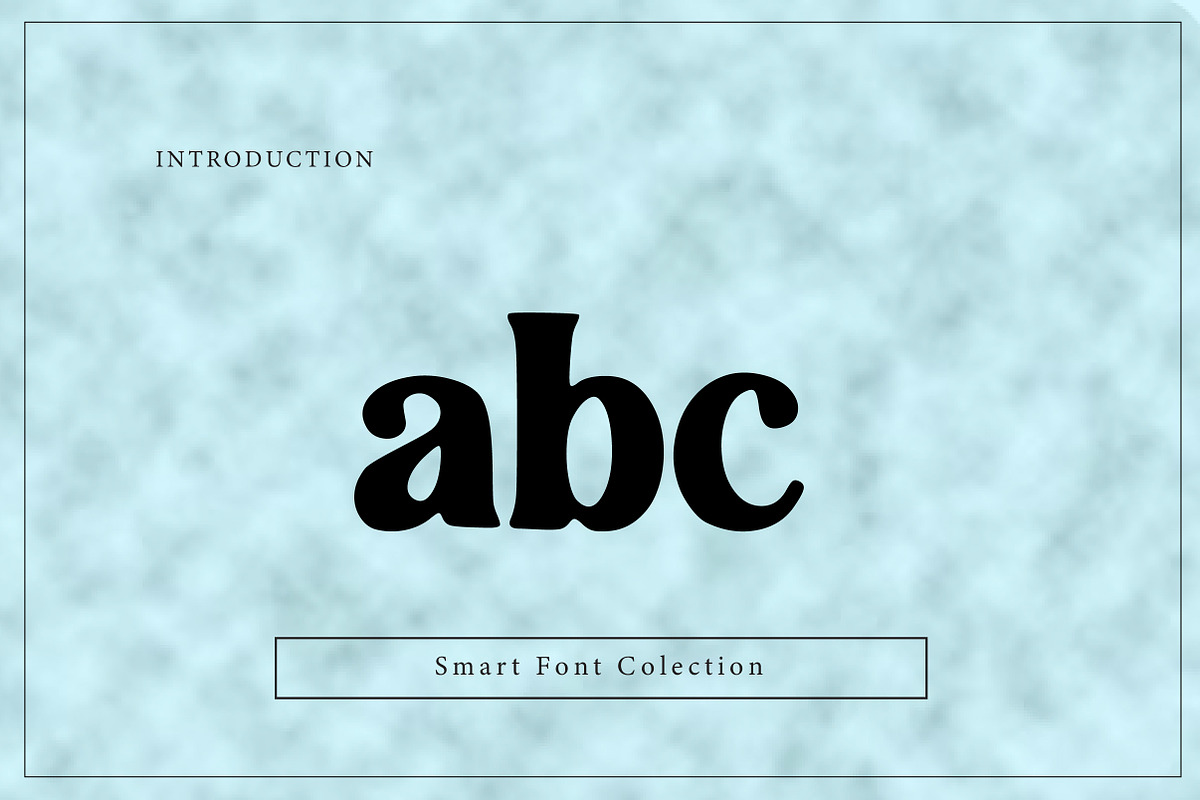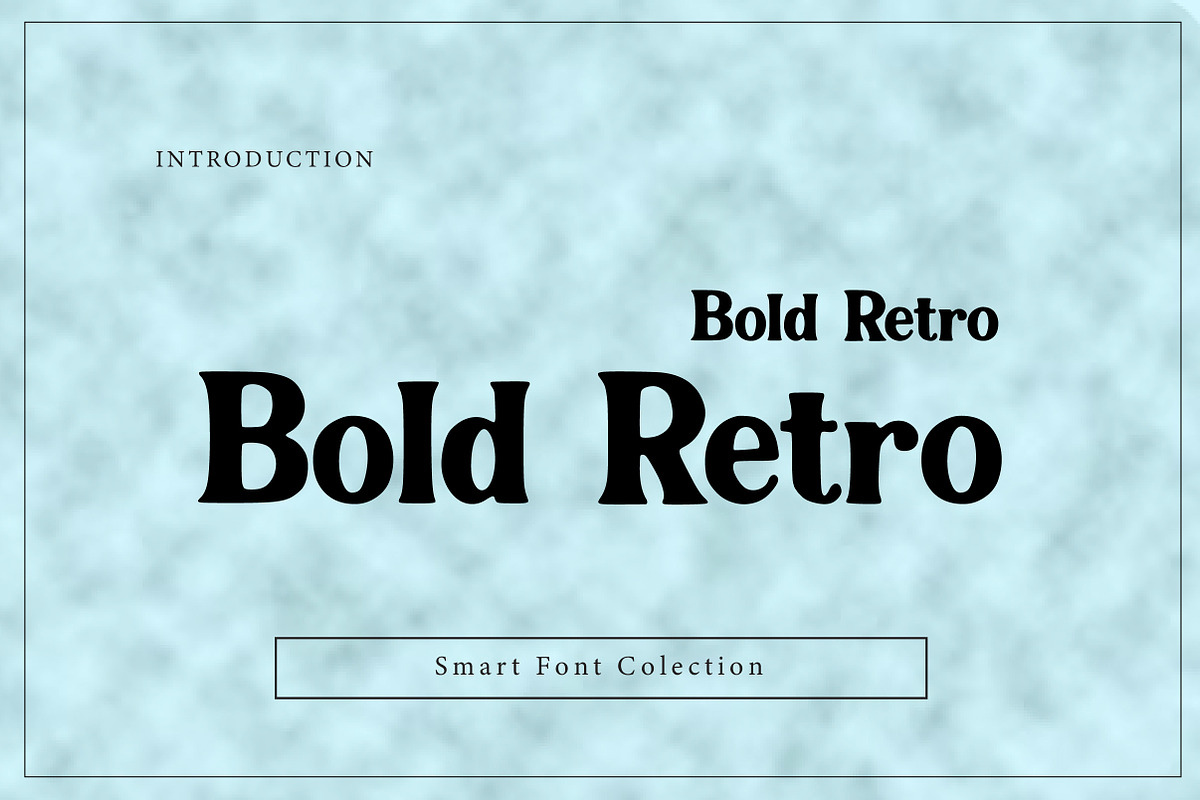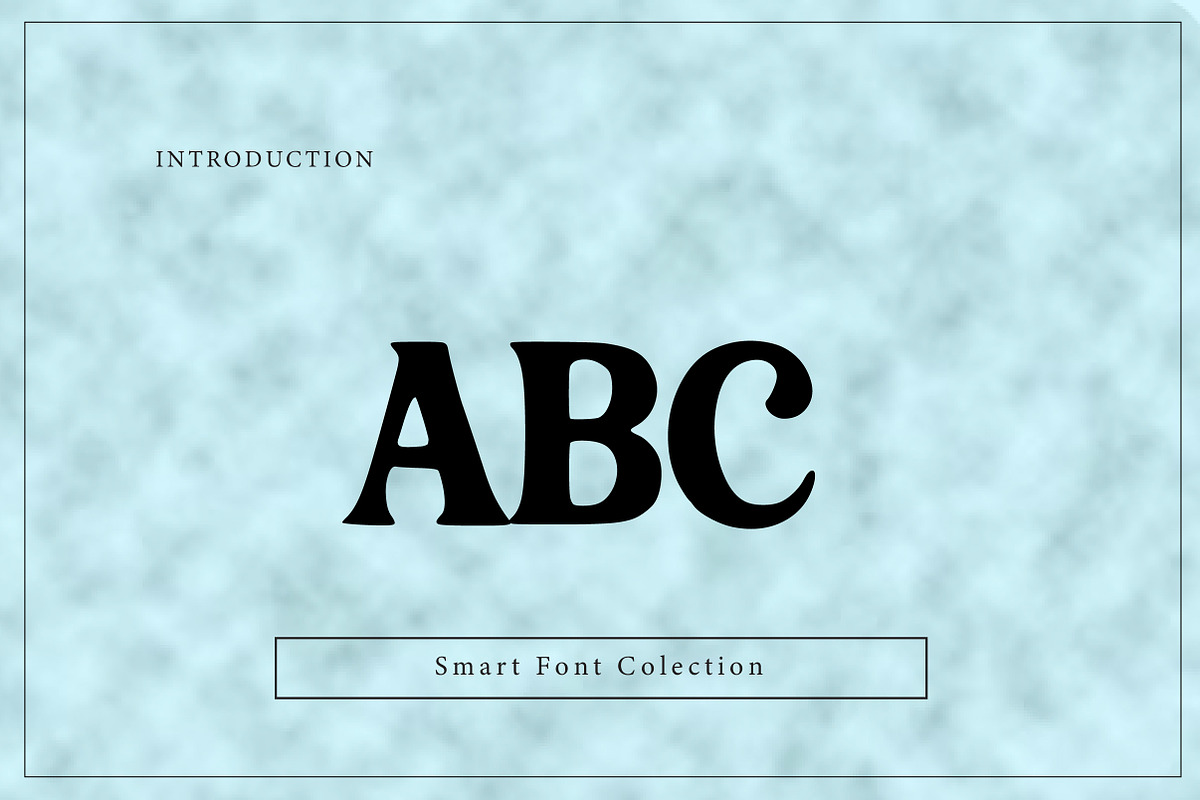
Bold Retro
Bold Retro is a bold and stylish vintage display font inspired by classic retro typography. Featuring thick strokes, smooth curves, and strong letterforms, this font is perfect for logos, posters, branding, packaging, t-shirts, stickers, advertisements, and social media designs. Bold Retro brings a nostalgic and timeless vibe that works great for 70s–90s inspired projects, retro branding, and eye-catching headlines.